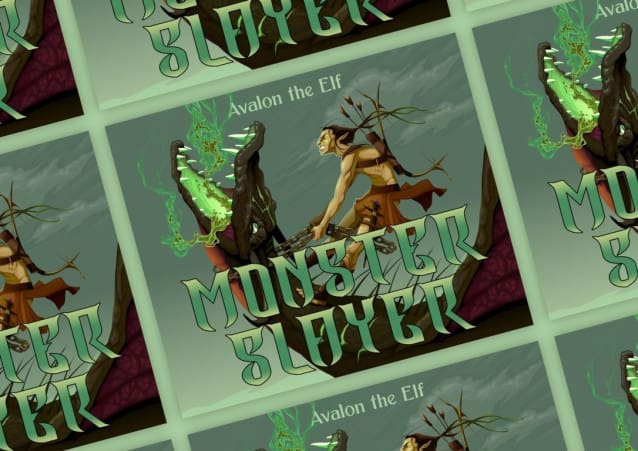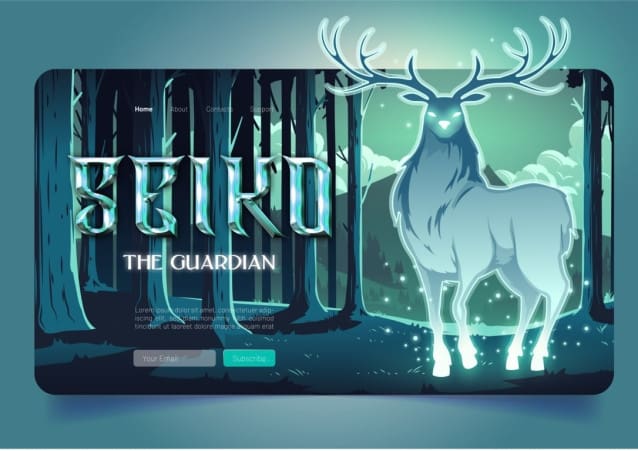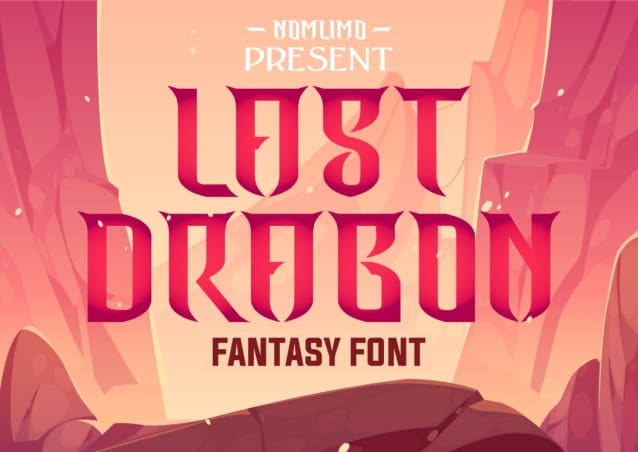
Last Dragon Font
Last Dragon Font, a captivating serif font inspired by the concept and themes found in Japanese Manga and video games. This font is perfect for creating dynamic and engaging designs in various mediums, including comics, games, and more. Experience the versatility of LastDragon by exploring the preview available on the font page. Let your creativity soar with Last Dragon and bring your designs to life with an undeniable impact.